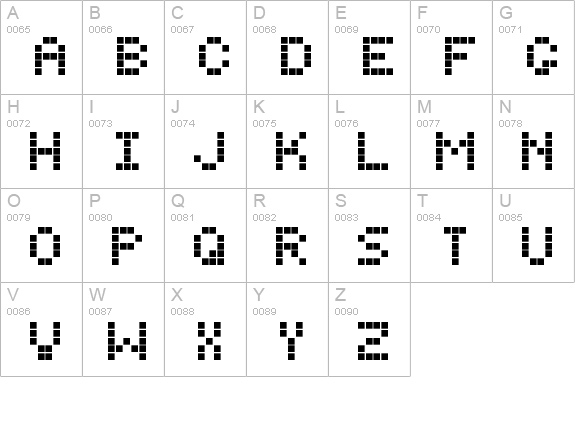
Digitol Font Details
Digitol is a modern and versatile font that combines sleek lines with a digital-inspired aesthetic. Its clean and sharp design makes it perfect for a wide range of projects, from branding to web design. The geometric shapes and futuristic vibe of Digitol give any text a contemporary and stylish look. What sets Digitol apart is not just its unique design, but also the fact that it is completely free to download. You can easily access this cutting-edge font at FontsMarket.com, where you can enhance your designs with this innovative typeface without any cost. Digitol is a must-have for designers looking to add a touch of modernity to their work, and with its availability as a free download, it's never been easier to elevate your projects with this striking font.